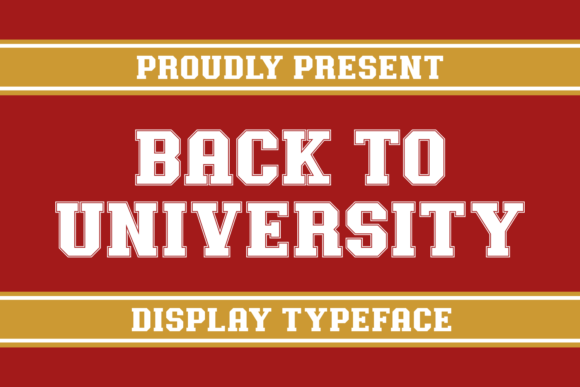
Introducing Back to University Font, a display font that captures the essence of college life and brings a nostalgic touch to your projects. Created by the talented Rydmaker from 7NTypes, this font is a must-have for anyone looking to elevate their designs and make a statement.
With its bold and refined design, Back to University Font exudes a classic college vibe that instantly takes you back to campus. It's like stepping into a time machine and reliving those memorable days of higher learning. This typeface is not just a font, it's a journey down memory lane.
When it comes to creating eye-catching banners, captivating yearbook covers, or attention-grabbing event flyers, Back to University Font is the perfect choice. It adds an intellectual charm to your designs, allowing you to stand out from the crowd and make a lasting impression.
But this font is not just about aesthetics. It's also highly functional and versatile, making it ideal for social media posts and branding materials. Its captivating style will make your content instantly shareable and engage your audience on a deeper level.
Back to University Font is more than just words on a page. It's a reflection of your personality, your creativity, and your passion for design. It's the missing piece that will bring your projects to life and leave a lasting impact.
Experience the nostalgia, embrace the creativity, and unleash your design potential with Back to University Font. Elevate your projects and inspire others with this remarkable typeface. Get ready to make a statement that will resonate with your audience and stand the test of time.